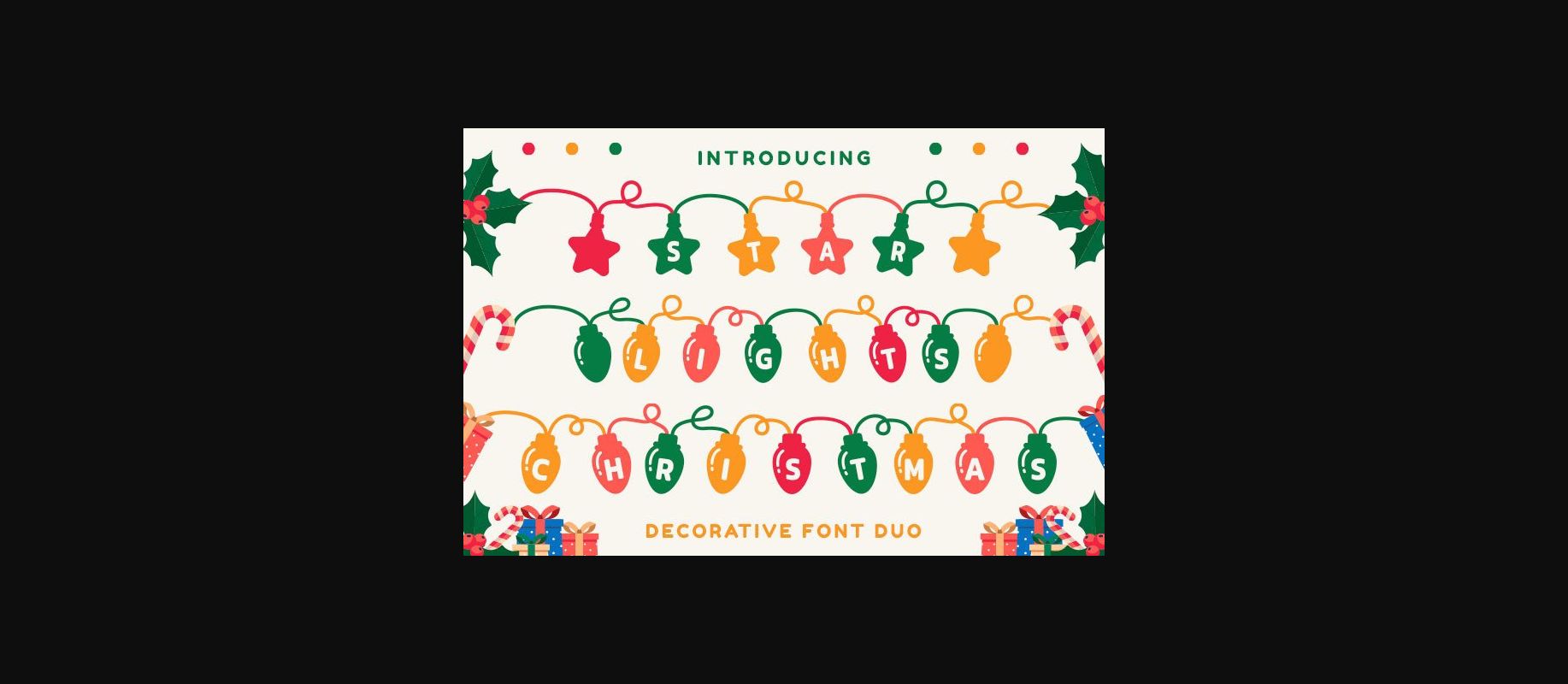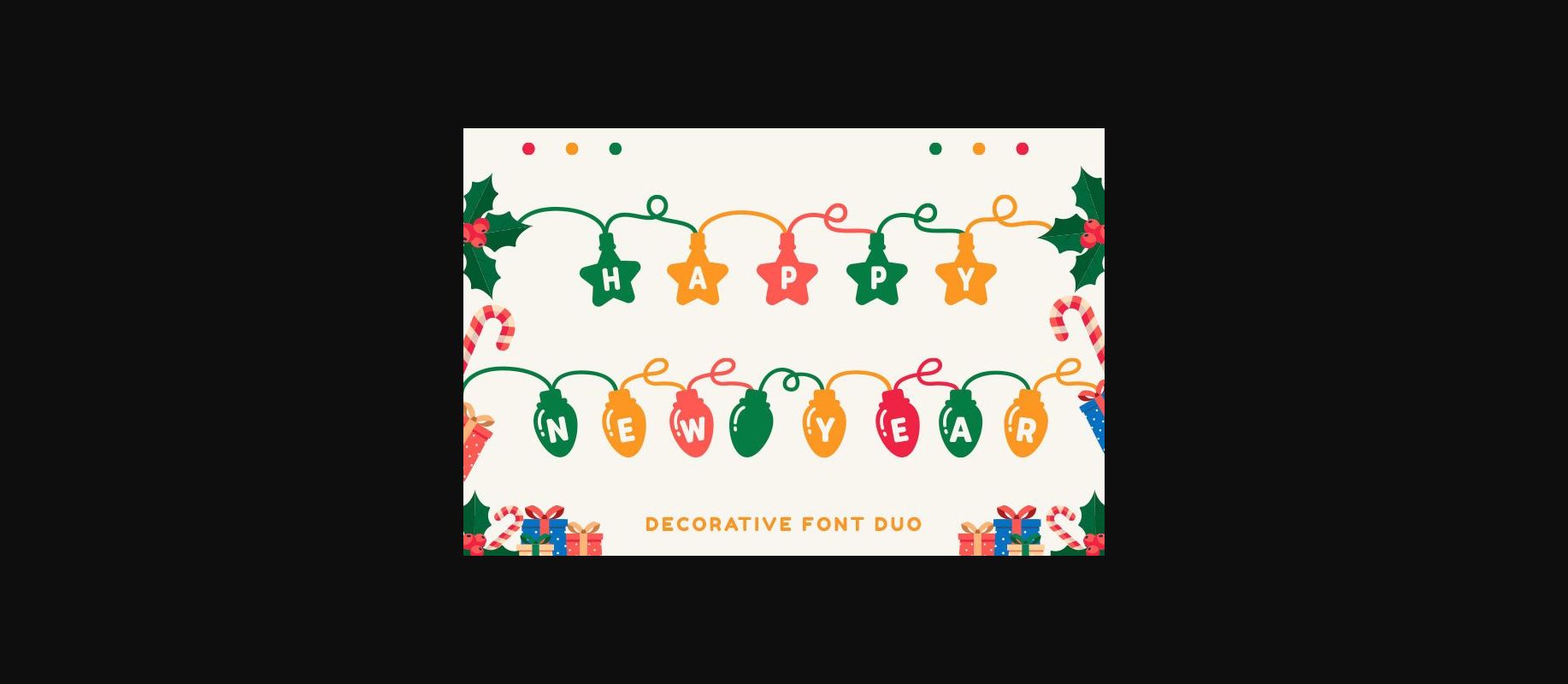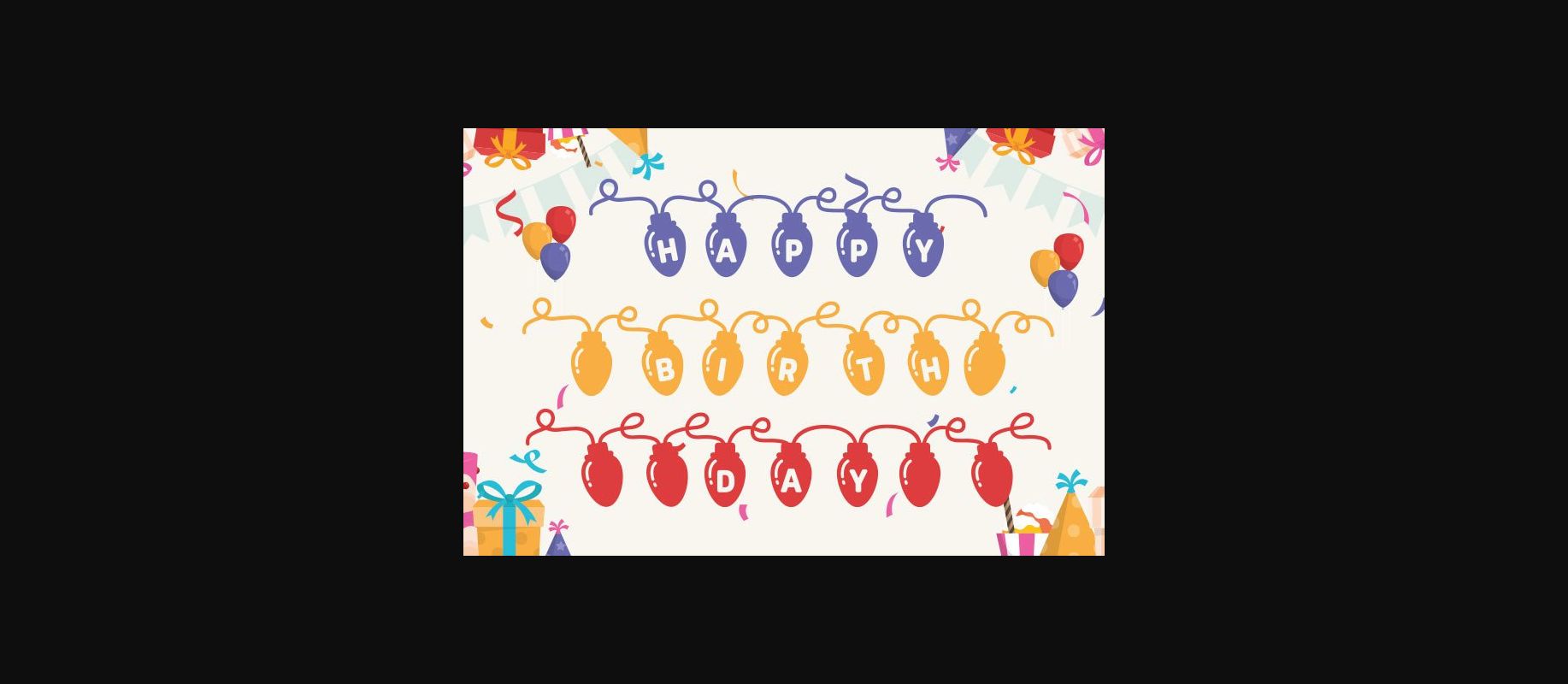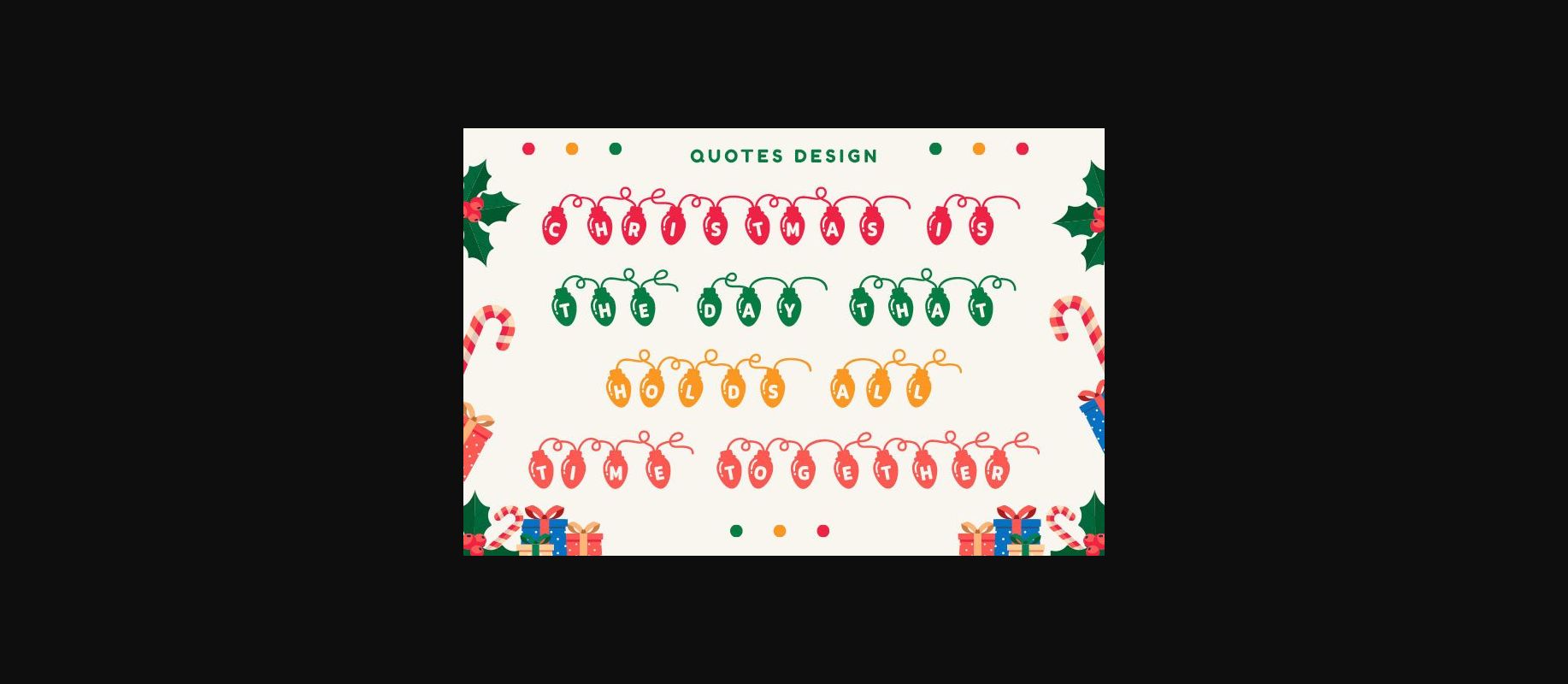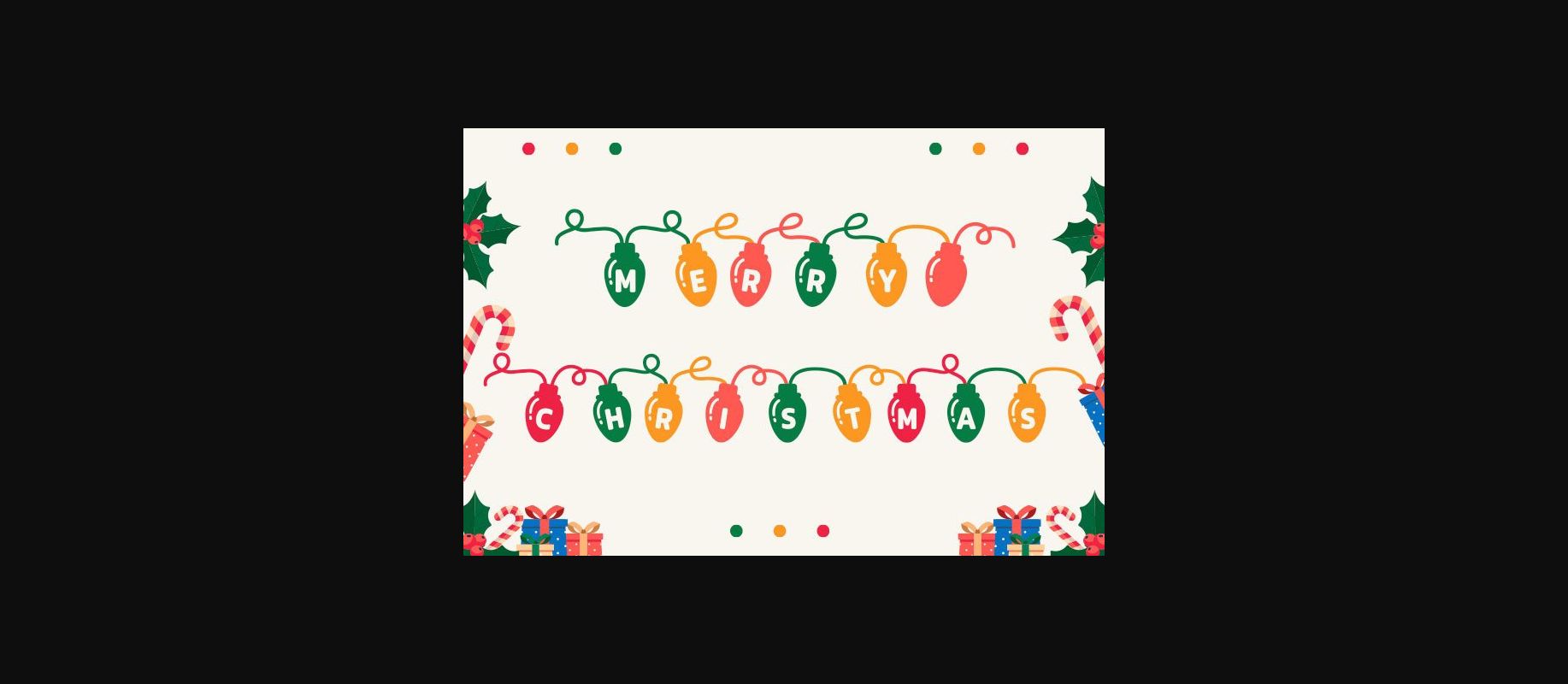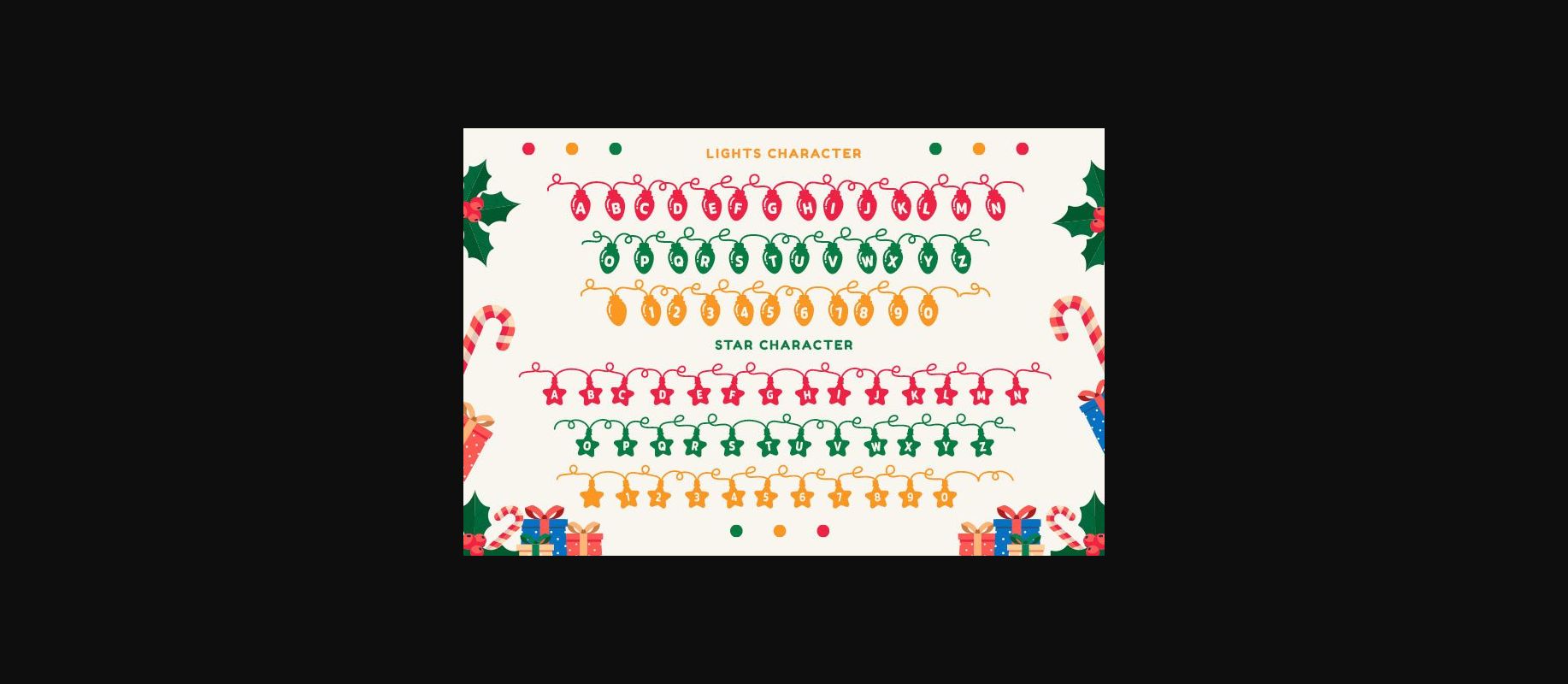
Star Lights Christmas Font
About Star Lights Christmas Font
Star Lights Christmas is a beautiful and unique decorative display font perfect for Christmas. This font is inspired by stars and lights on Christmas, which makes it suitable for creating cute holiday t-shirts, stickers, cover books, children’s books, social media posts, and much more!